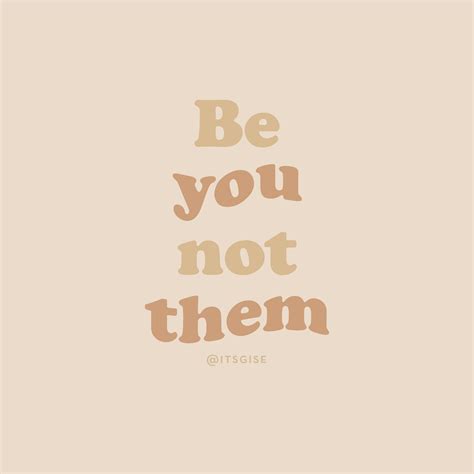
In the world of design and typography, the choice of font can significantly impact the overall aesthetic and readability of a project. One font that has gained popularity for its versatility and elegance is the Cream Beige Font. This font is particularly favored for its ability to evoke a sense of warmth and sophistication, making it a go-to choice for various design applications. Whether you're working on a website, a print design, or a branding project, understanding the nuances of the Cream Beige Font can help you create visually appealing and effective designs.
Understanding the Cream Beige Font
The Cream Beige Font is characterized by its soft, neutral color palette and its clean, modern design. The font's name itself suggests a gentle, earthy tone, which is reflected in its visual appearance. The Cream Beige Font is often used in designs that aim to convey a sense of calm and tranquility, making it ideal for projects that require a soothing and inviting atmosphere.
One of the key features of the Cream Beige Font is its versatility. It can be used in a variety of contexts, from elegant invitations to modern website designs. The font's neutral color scheme allows it to blend seamlessly with other design elements, making it a versatile choice for designers who want to create cohesive and harmonious designs.
Applications of the Cream Beige Font
The Cream Beige Font is widely used in various design applications due to its versatility and aesthetic appeal. Here are some common uses of the Cream Beige Font:
- Website Design: The Cream Beige Font is often used in website design to create a clean and modern look. Its neutral color scheme makes it easy to pair with other design elements, such as images and graphics, without overwhelming the viewer.
- Print Design: In print design, the Cream Beige Font is used to create elegant and sophisticated designs. It is often used in invitations, business cards, and brochures to convey a sense of warmth and sophistication.
- Branding: The Cream Beige Font is a popular choice for branding projects due to its versatility and aesthetic appeal. It can be used to create logos, packaging designs, and marketing materials that convey a sense of elegance and sophistication.
- Digital Media: The Cream Beige Font is also used in digital media, such as social media graphics and online advertisements. Its neutral color scheme makes it easy to pair with other design elements, creating visually appealing and effective designs.
Design Tips for Using the Cream Beige Font
When using the Cream Beige Font in your designs, there are several tips to keep in mind to ensure that your designs are visually appealing and effective. Here are some design tips for using the Cream Beige Font:
- Pairing with Other Fonts: The Cream Beige Font pairs well with a variety of other fonts. For a modern and clean look, pair it with a sans-serif font. For a more traditional and elegant look, pair it with a serif font. Experiment with different font combinations to find the perfect pairing for your design.
- Color Scheme: The Cream Beige Font works well with a variety of color schemes. Its neutral color palette allows it to blend seamlessly with other design elements. Consider using complementary colors, such as shades of blue or green, to create a harmonious and visually appealing design.
- Typography: When using the Cream Beige Font, pay attention to typography. Ensure that the font size is legible and that the line spacing is appropriate. Use bold or italic styles sparingly to emphasize important text.
- Consistency: Maintain consistency in your use of the Cream Beige Font. Use it consistently throughout your design to create a cohesive and harmonious look. Avoid switching between different fonts unless necessary.
Examples of Cream Beige Font in Action
To better understand how the Cream Beige Font can be used in various design applications, let's look at some examples:
In this example, the Cream Beige Font is used in a website design to create a clean and modern look. The font's neutral color scheme allows it to blend seamlessly with other design elements, such as images and graphics, without overwhelming the viewer.
In this example, the Cream Beige Font is used in a print design to create an elegant and sophisticated invitation. The font's warm and inviting color scheme conveys a sense of tranquility and sophistication, making it ideal for special occasions.
In this example, the Cream Beige Font is used in a branding project to create a logo and packaging design. The font's versatility and aesthetic appeal make it a popular choice for branding projects, as it can be used to create designs that convey a sense of elegance and sophistication.
Comparing Cream Beige Font with Other Fonts
To better understand the unique qualities of the Cream Beige Font, it's helpful to compare it with other popular fonts. Here is a comparison table:
| Font Name | Color Scheme | Style | Common Uses |
|---|---|---|---|
| Cream Beige Font | Neutral, Earthy | Clean, Modern | Website Design, Print Design, Branding, Digital Media |
| Helvetica | Black, White | Sans-Serif, Modern | Logos, Headlines, Body Text |
| Times New Roman | Black, White | Serif, Traditional | Books, Academic Papers, Formal Documents |
| Arial | Black, White | Sans-Serif, Modern | Websites, Presentations, Documents |
The Cream Beige Font stands out for its neutral color scheme and clean, modern design, making it a versatile choice for various design applications. Its ability to evoke a sense of warmth and sophistication sets it apart from other fonts, making it a popular choice for designers who want to create visually appealing and effective designs.
💡 Note: When choosing a font, consider the overall aesthetic and readability of your design. The Cream Beige Font is a great choice for designs that require a soothing and inviting atmosphere, but it may not be suitable for all design applications.
In conclusion, the Cream Beige Font is a versatile and elegant font that can be used in a variety of design applications. Its neutral color scheme and clean, modern design make it a popular choice for designers who want to create visually appealing and effective designs. Whether you’re working on a website, a print design, or a branding project, understanding the nuances of the Cream Beige Font can help you create designs that convey a sense of warmth and sophistication. By following the design tips and examples provided, you can effectively incorporate the Cream Beige Font into your designs to achieve the desired aesthetic and readability.